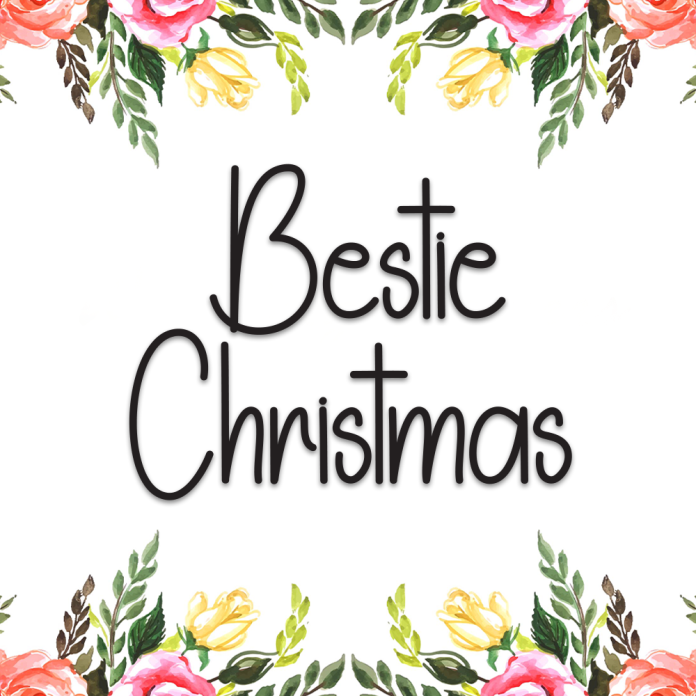
Bestie Christmas is a cheerful and festive display font that captures the joyful spirit of the holiday season. With its playful letterforms and charming details, it’s perfect for spreading warmth and happiness in your designs.
Fun and festive display style
Ideal for Christmas cards, party invitations, posters, and holiday merchandise
Bold and eye-catching letter shapes
Includes uppercase, lowercase, numbers, and punctuation
Supports multiple languages
Bring the magic of Christmas to life with Bestie Christmas.